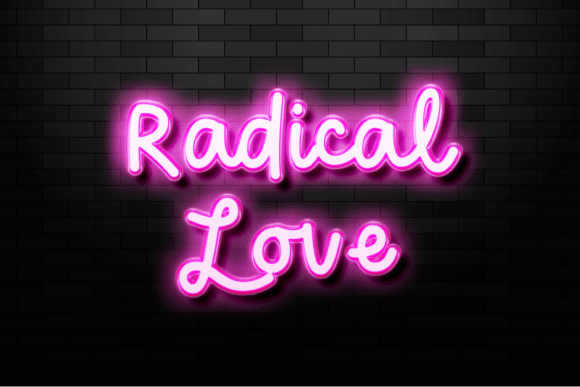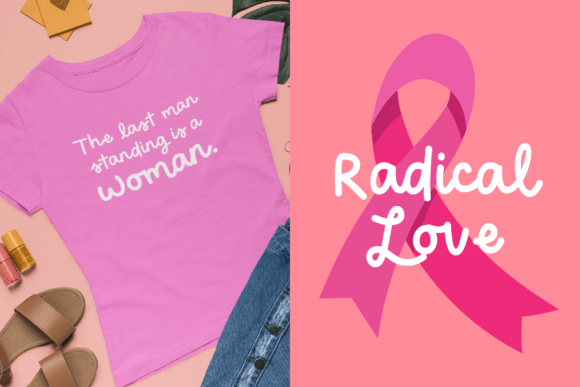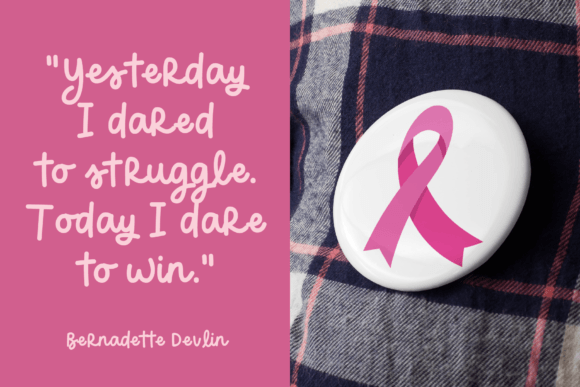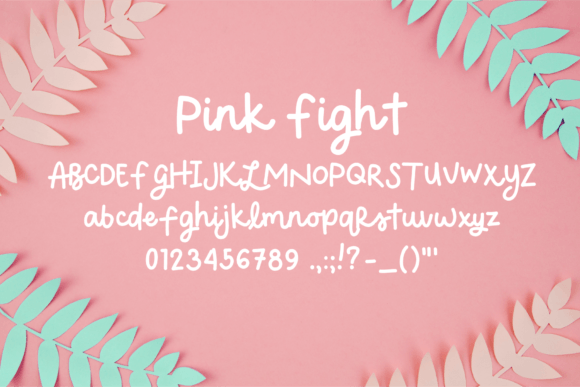
Introduction to Pink Fight Font
Have you ever been working on a creative project and stumbled upon the perfect font that instantly elevates your design? For me, that moment happened when I discovered the Pink Fight Font. This sweet and cute script font has become a staple in my design toolkit, and I’m excited to share its charms with you.
The Pink Fight Font is more than just a pretty face; it’s a high-quality design resource that’s perfect for a wide range of creative projects. From crafting beautiful greeting cards to creating engaging presentations, this font has the potential to become your go-to choice for any occasion. And the best part? It’s available for a free download, making it an accessible and valuable resource for designers of all levels.
Whether you’re looking to add a touch of whimsy to your design or simply want a reliable font to fall back on, the Pink Fight Font is a must-have in your design arsenal. With its transparent background and endless possibilities for customization, this font is sure to inspire your next creative project.
Pink Fight Font: Key Features
- High-quality design resource ideal for creative projects, offering a unique and eye-catching aesthetic.
- Includes a comprehensive character set, including uppercase and lowercase letters, numerals, and special characters.
- Unique and bold design makes it perfect for titles, headings, and other prominent text elements in creative projects.
Honest Review: Pink Fight Font
I recently stumbled upon the Pink Fight Font and was eager to try it out for my latest design project. As a designer, I’m always on the lookout for high-quality design resources that can elevate my creative work.
What works well with the Pink Fight Font is its bold and playful style, making it perfect for projects that need a bit of whimsy. The font is highly customizable and comes in various weights, allowing me to easily adjust the style to suit my design needs. I also appreciate that the font has a transparent background, making it easy to layer and composite with other design elements.
- ✨ Highly customizable with various weights
- ✨ Perfect for projects that need a playful touch
- ✨ Transparent background
However, I do have to mention a few limitations. The font doesn’t come with a lot of ligature options, which can be a bit limiting in certain design situations.
Overall, I’m impressed with the Pink Fight Font and would definitely recommend it to other designers. It’s a great addition to any design resource library and can add a fun and playful touch to any creative project.
Transparent Background
The Pink Fight Font has a transparent background, making it ideal for overlaying text on images or using it as a standalone design element.
For optimal results, use the Pink Fight Font in bold and playful contexts, such as:
- Social media promotions
- Festival and event branding
- Food and beverage packaging design